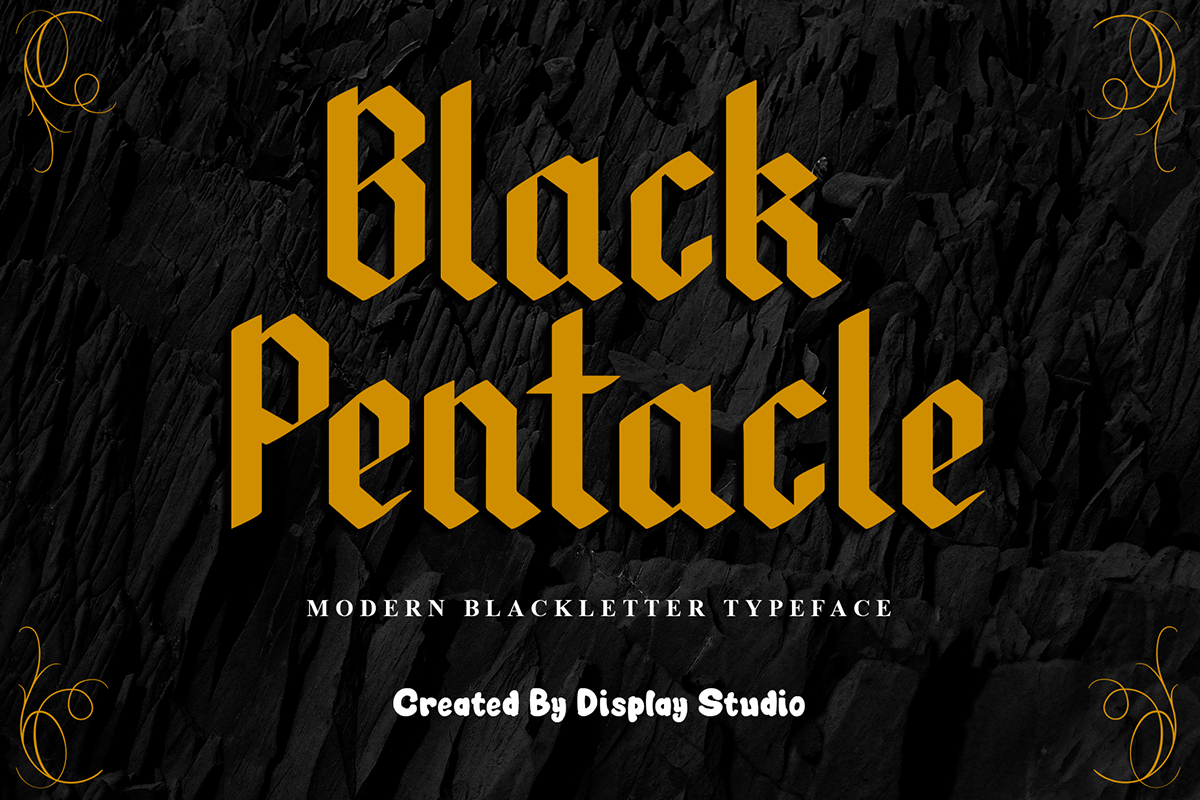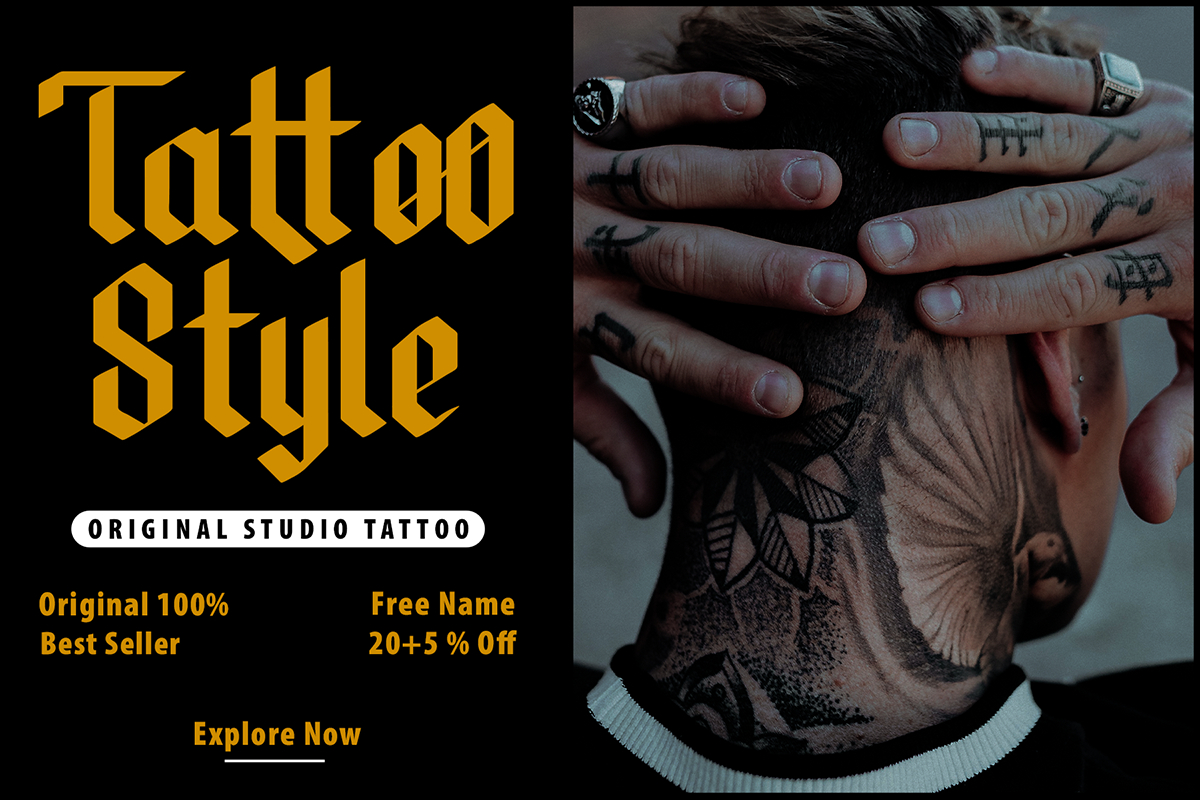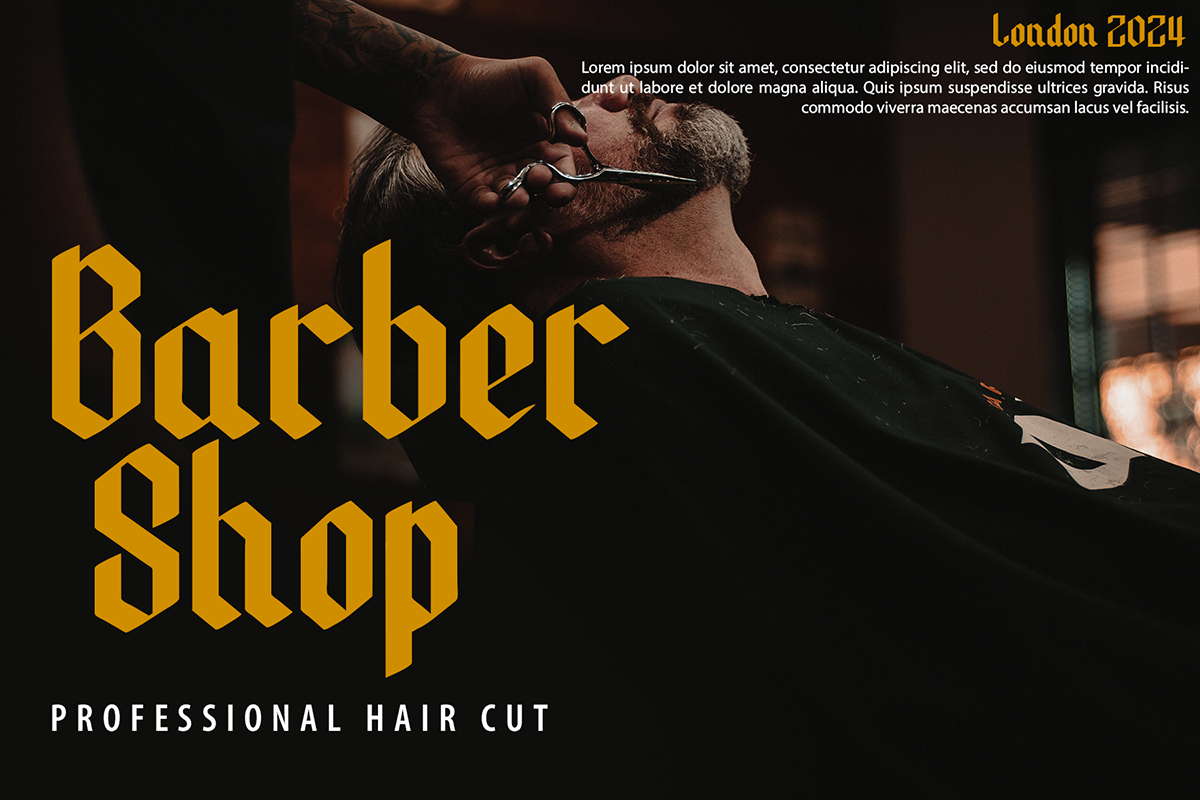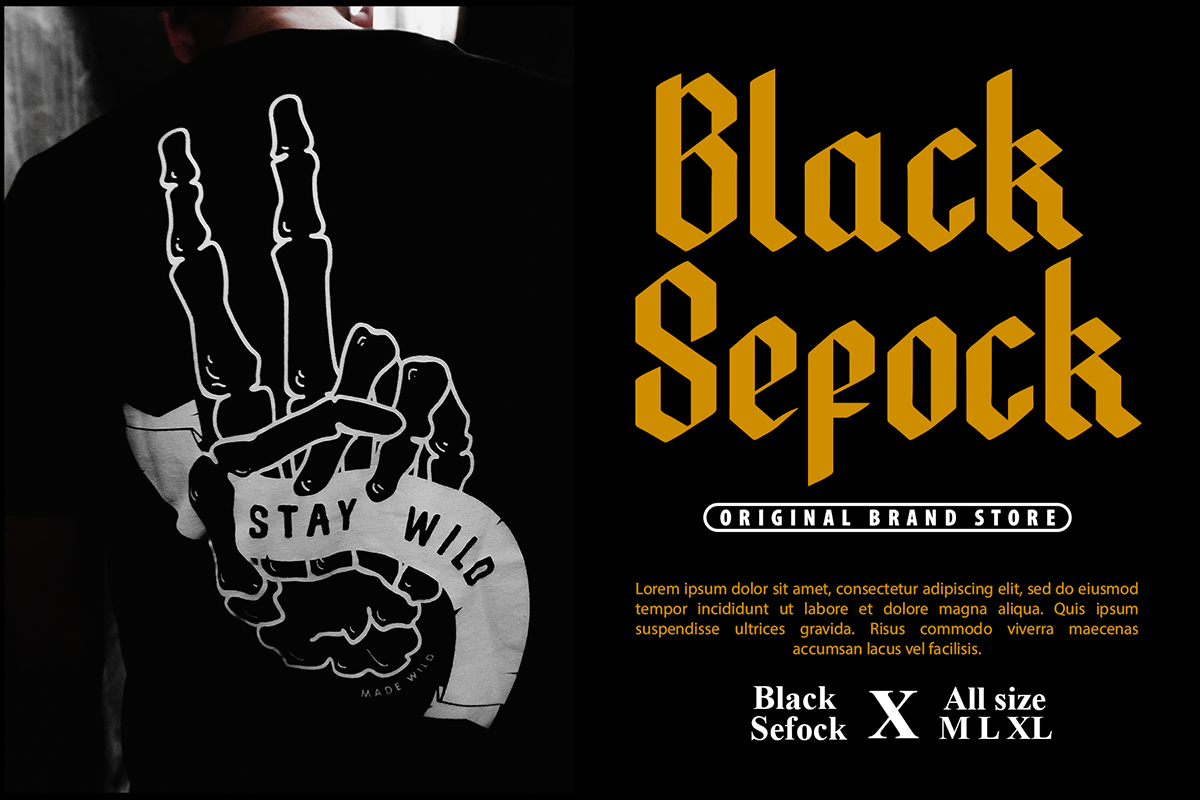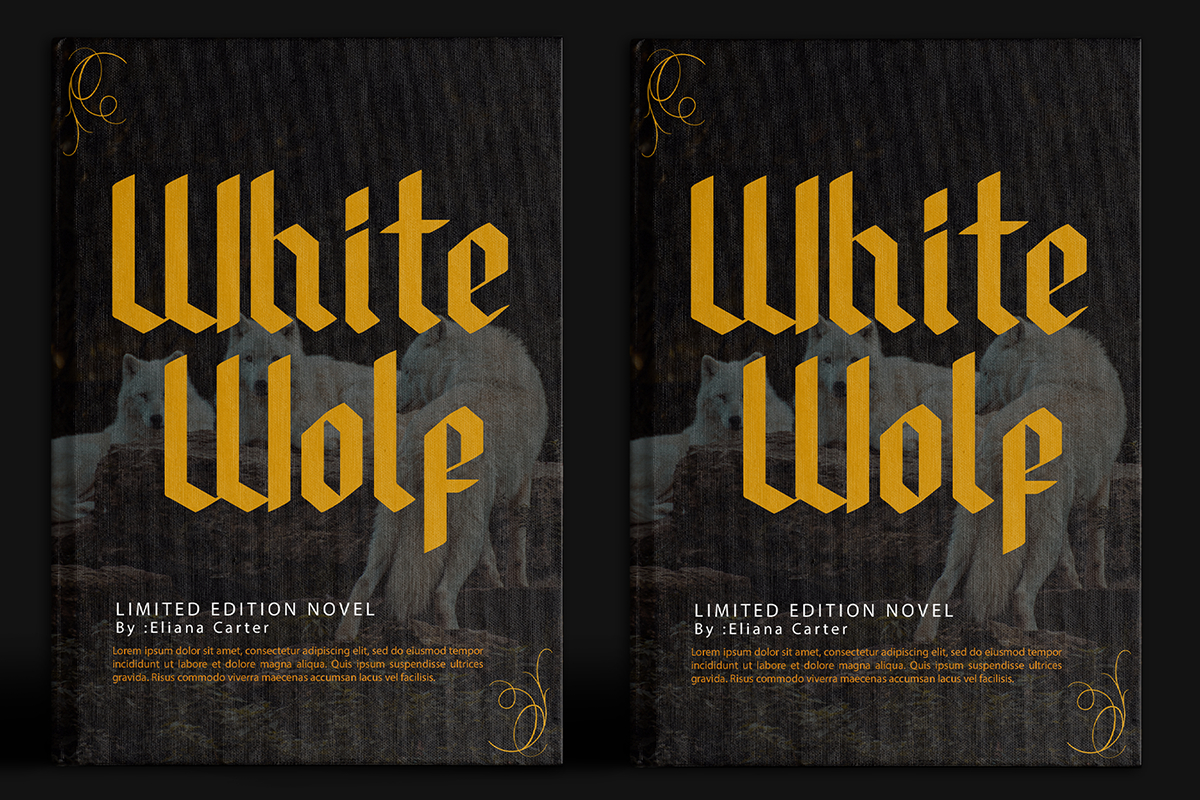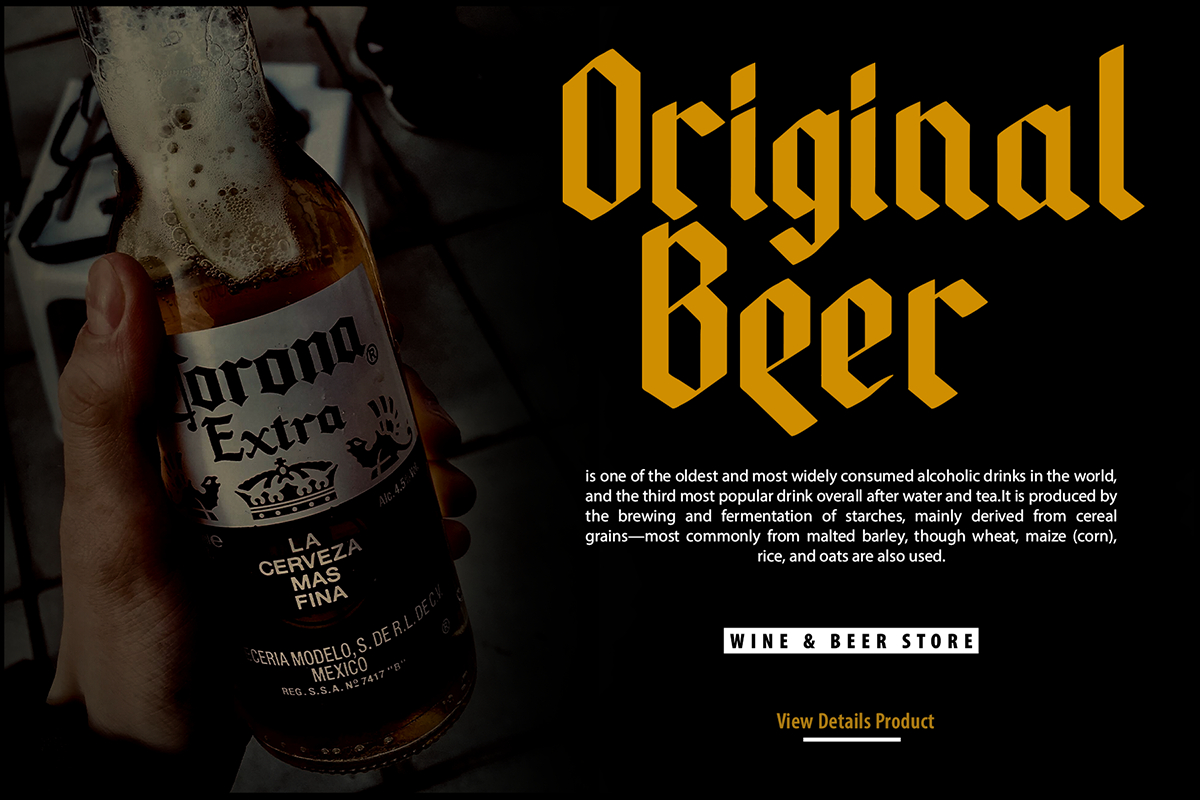
Black Pentacle Font
About Black Pentacle Font
Black Pentacle is an assertive and highly detailed blackletter font. This font is imposing and features uniquely shaped letters, and as a result, it will easily match a wide range of creations that require a distinct touch.